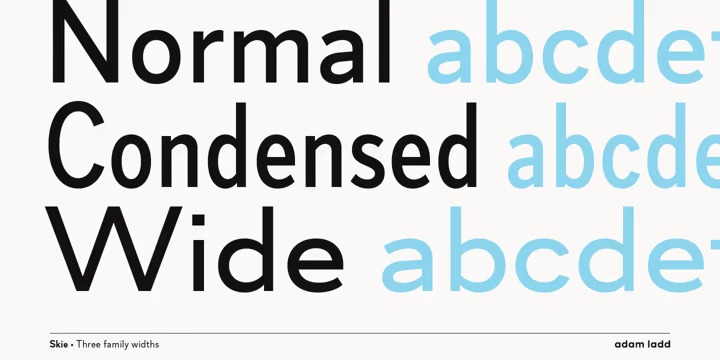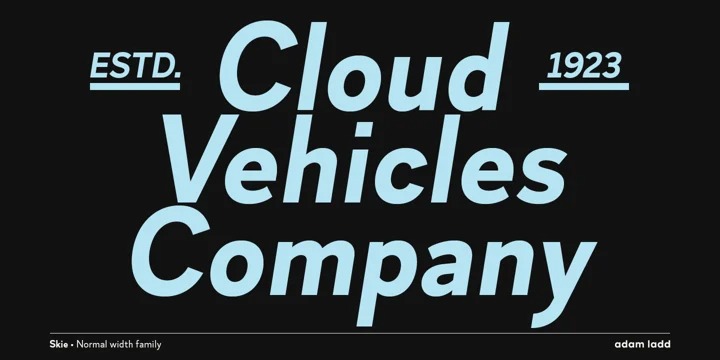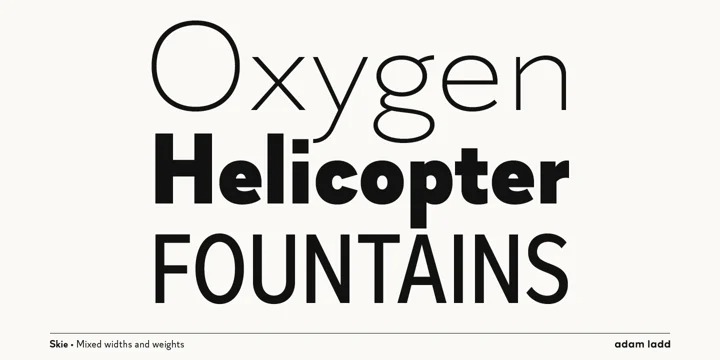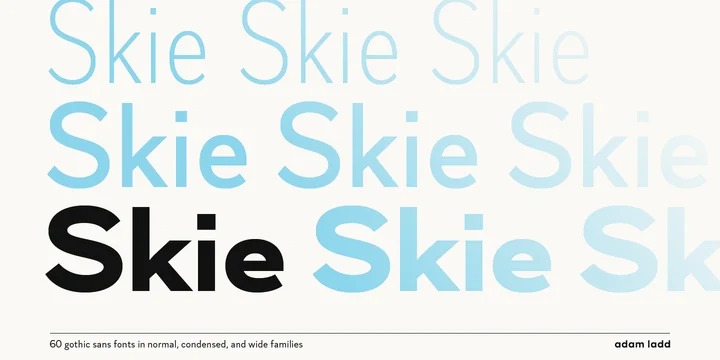
Skie Font Family
Skie Sans Serif Font
This font is a sharp, luxe sans serif typeface Family created by Adam Ladd with normal, condensed, and wide families. Its distinguishing characteristics are the small x-height with tall ascenders, and a minimal amount of contrast, while the apertures are semi-open to help in readability. The simple design keeps the appearance fairly neutral and presents a blend of modern and vintage qualities.
With 60 fonts in 10 weights and 3 widths making up the complete family, it could be considered a superfamily or workhorse as the widths β€” normal, condensed, and wide β€” all harmonize together to give the designer a variety of proportions and layout options to work with. Each width carries a little different tone and feel.